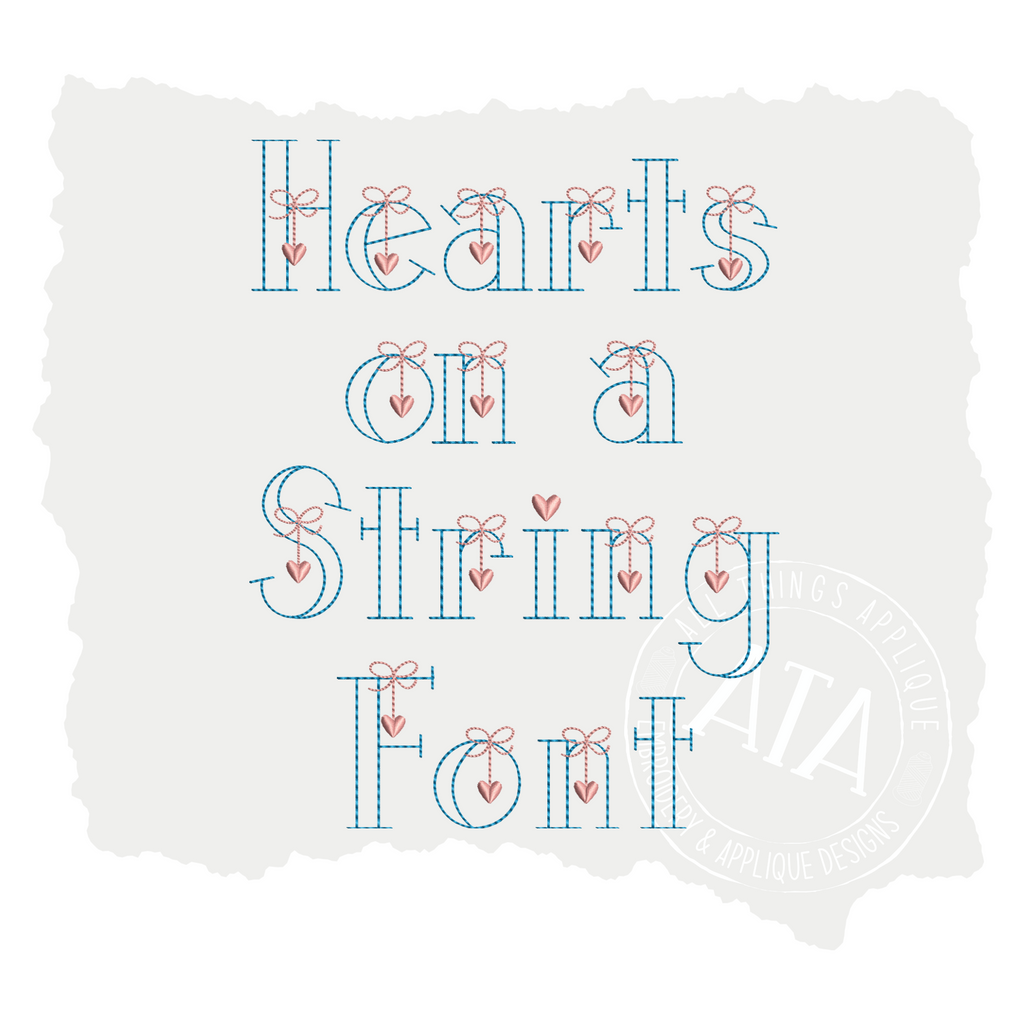
Hearts on a String Embroidery Font
This sweet Hearts on a String Font is perfect for Valentine's Day!
This font matches perfectly with our Classic Quick Stitch Font as seen in the "Hadley" picture example. You can use some letters from the Hearts on a String Font and some letters from the Classic Quick Stitch font to space out the hearts.